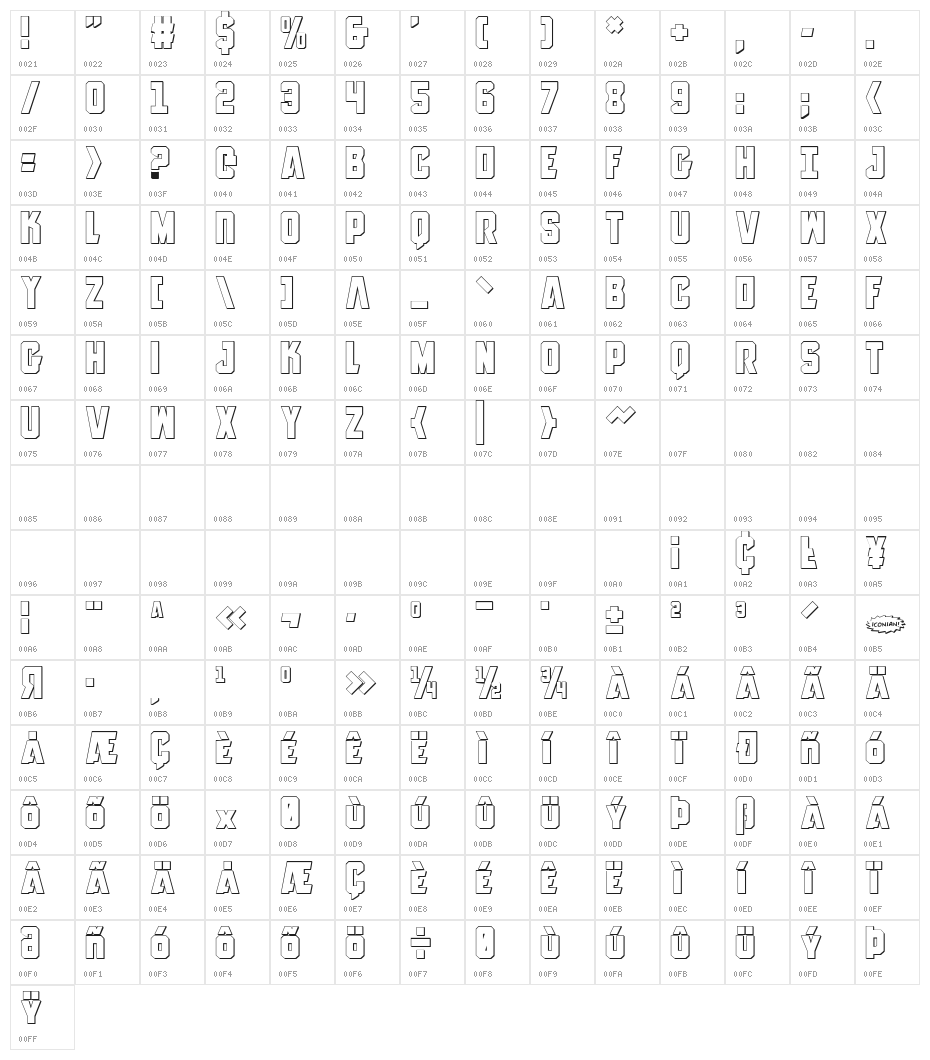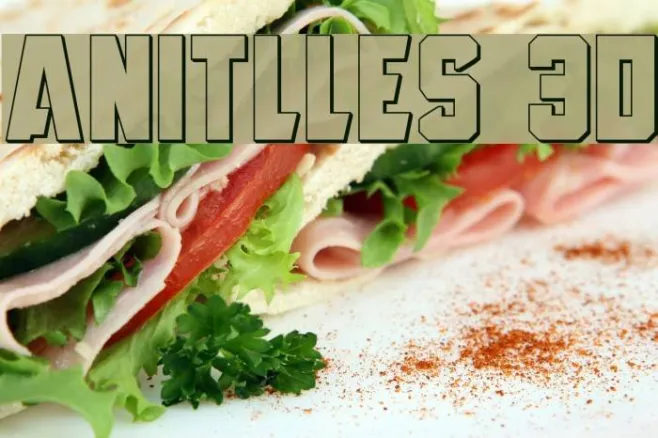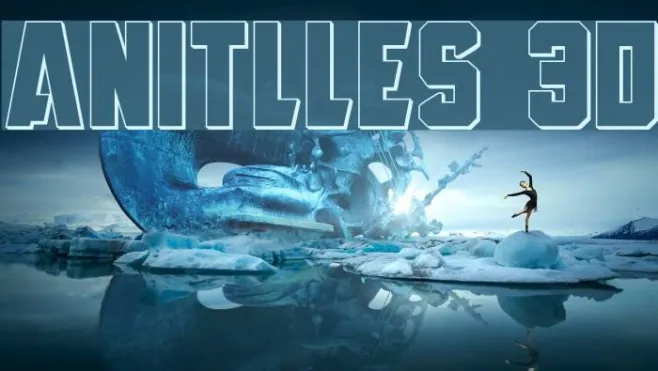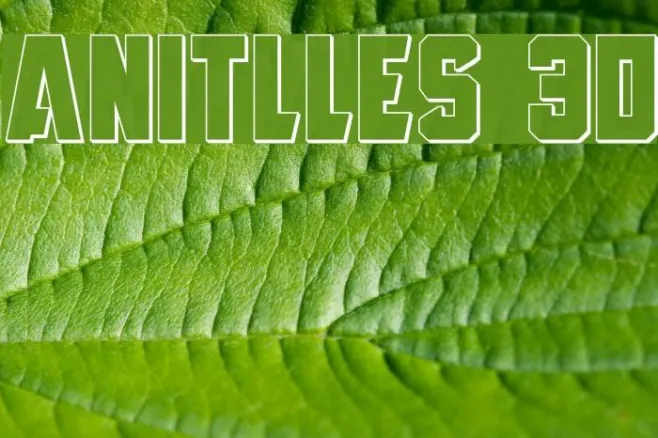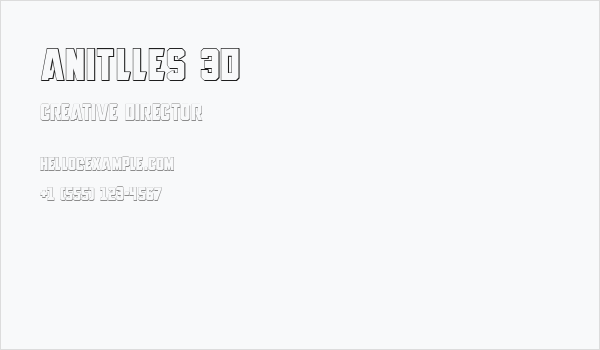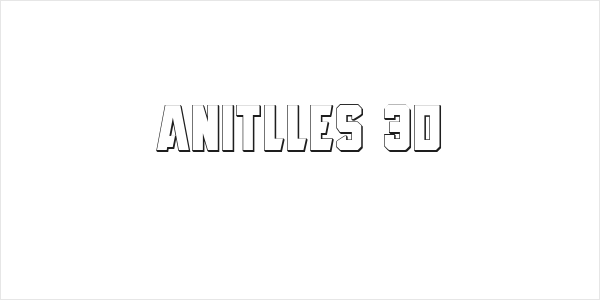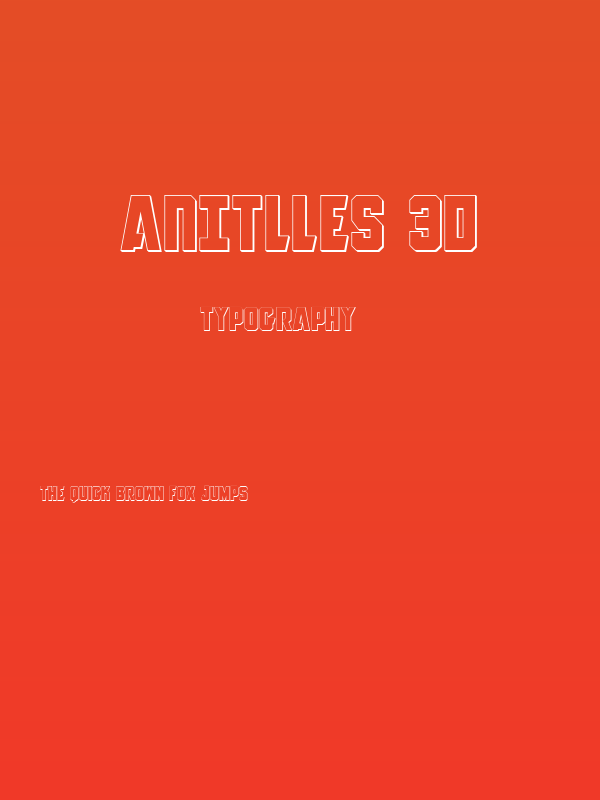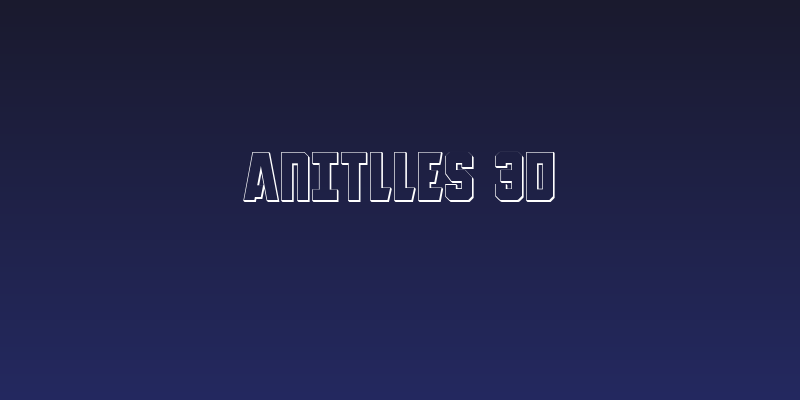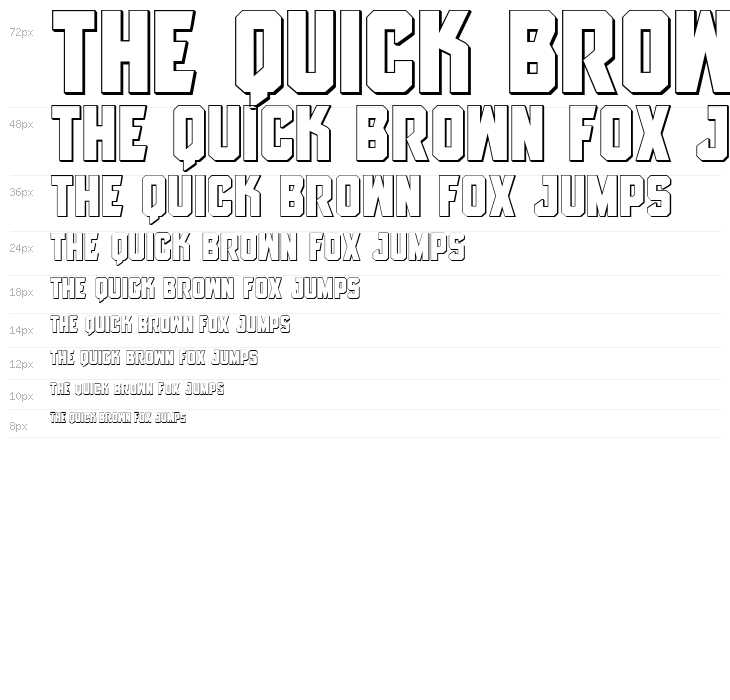
Anitlles 3D Font
Anitlles 3D Description
This font features a bold, three-dimensional design with a strong, impactful presence. The characters are outlined, creating a shadow effect that gives them depth and a sense of movement. The uppercase letters are angular and geometric, with sharp edges and clean lines. The numbers and special characters follow the same style, maintaining consistency throughout. This font is highly decorative, making it ideal for attention-grabbing headlines or titles. Its unique 3D effect adds a modern and dynamic touch to any design project.